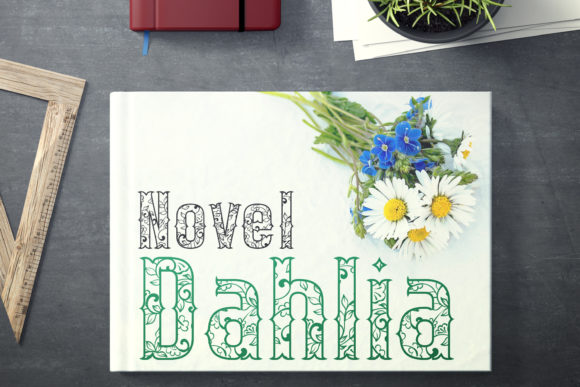
Gayatri Font: A Unique Blackletter Font Inspired by Swirling Shapes
The world of typography is vast and diverse, with numerous fonts catering to various design needs. One such font that has gained popularity for its distinctive style is the Gayatri Font. This blackletter font is inspired by the shape of swirls, offering a unique and natural feel that sets it apart from other fonts. In this article, we will explore the features, uses, and benefits of the Gayatri Font, making it a go-to choice for designers and artists.
What is Gayatri Font?
Gayatri Font is a blackletter font that draws inspiration from the swirling shapes found in nature. Its unique design makes it perfect for a variety of applications, including invitations, posters, logos, book covers, and more. The font’s natural feel and distinctive style give it an edge over other fonts, making it a popular choice among designers.
Key Features of Gayatri Font
- Unique Swirling Shapes: The Gayatri Font is characterized by its swirling shapes, which give it a natural and distinctive feel.
- Blackletter Style: The font is a blackletter font, which means it has a bold and dramatic appearance.
- Natural Feel: The font’s natural feel makes it perfect for designs that require an organic and earthy touch.
- Versatile: The Gayatri Font can be used for a variety of applications, including invitations, posters, logos, book covers, and more.
Uses of Gayatri Font
The Gayatri Font is a versatile font that can be used for various design projects. Some of the most popular uses of this font include:
- Invitations: The font’s unique style makes it perfect for invitations, such as wedding invitations, birthday invitations, and more.
- Posters: The Gayatri Font can be used to create eye-catching posters for events, promotions, and more.
- Logos: The font’s distinctive style makes it a great choice for logos, especially for businesses that want to stand out.
- Book Covers: The font’s natural feel and bold appearance make it perfect for book covers, especially for genres such as fantasy, horror, and more.
Benefits of Using Gayatri Font
The Gayatri Font offers several benefits to designers and artists, including:
- Unique Style: The font’s unique style sets it apart from other fonts, making it a great choice for designers who want to create distinctive designs.
- Versatility: The font’s versatility makes it perfect for various design projects, from invitations to book covers.
- Easy to Read: Despite its bold and dramatic appearance, the Gayatri Font is easy to read, making it perfect for designs that require a clear and concise message.
- High-Quality: The font is of high quality, ensuring that it looks great in various resolutions and sizes.
The Gayatri Font is a unique and versatile blackletter font that is perfect for designers and artists who want to create distinctive designs. Its swirling shapes and natural feel make it a great choice for various design projects, from invitations to book covers. With its high-quality design and ease of use, the Gayatri Font is a great addition to any designer’s toolkit.
- What is the Gayatri Font? The Gayatri Font is a blackletter font inspired by swirling shapes, offering a unique and natural feel.
- What is the Gayatri Font used for? The font can be used for various design projects, including invitations, posters, logos, book covers, and more.
- Is the Gayatri Font easy to read? Yes, the font is easy to read, despite its bold and dramatic appearance.